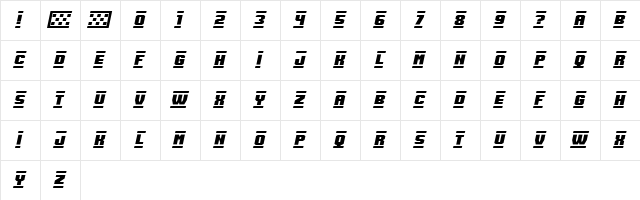
Speed Racing Italic
Italic · Vladimir Nikolic Vladimir Nikolic ·
Design Context for Speed Racing Typeface
Speed Racing is a composed and adaptable typeface that performs quietly and consistently across a wide range of design contexts. The slanted form adds forward momentum and visual energy.
Pro Tip: Try Speed Racing for annotation and caption copy alongside an upright companion — the contrast in angle creates a dynamic but ordered typographic system.